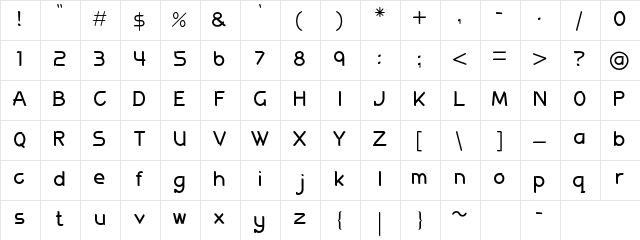
Allenatore Regular Regular
| Designer | Abo Daniel 2018 |
Design Context for Allenatore Regular Typeface
Allenatore Regular offers clean, dependable letterforms without strong stylistic allegiance, making it a practical choice for designers who need flexibility.